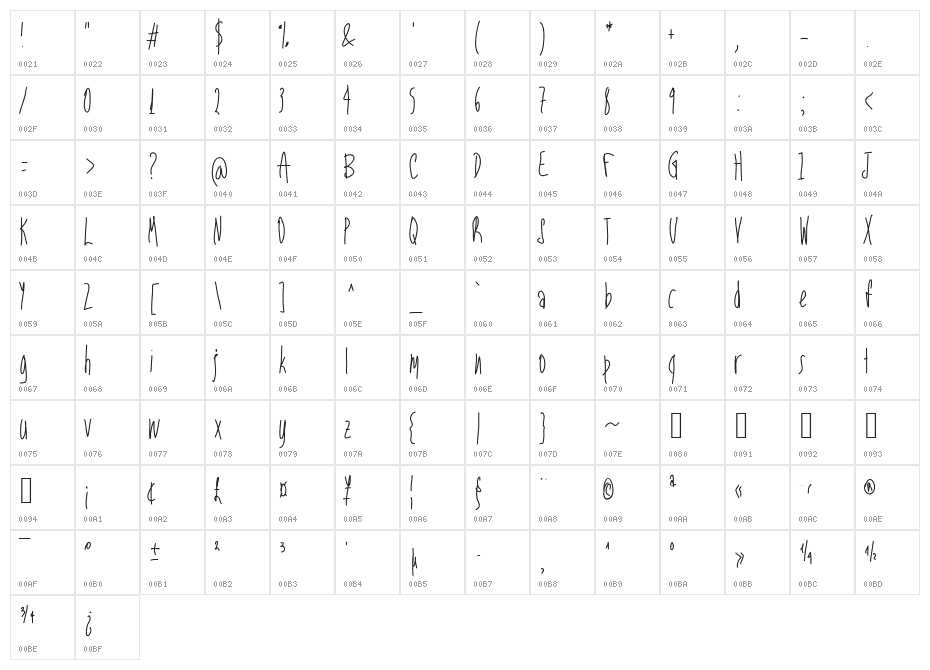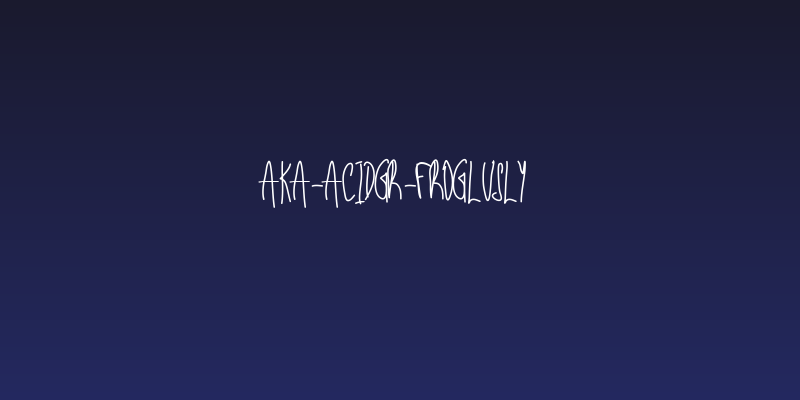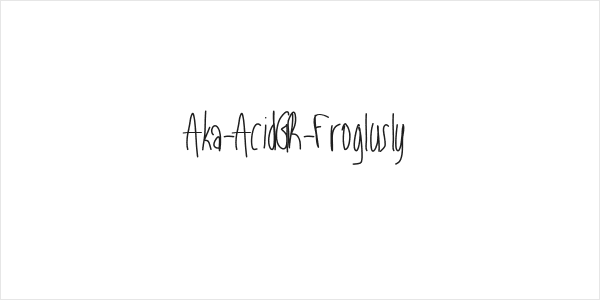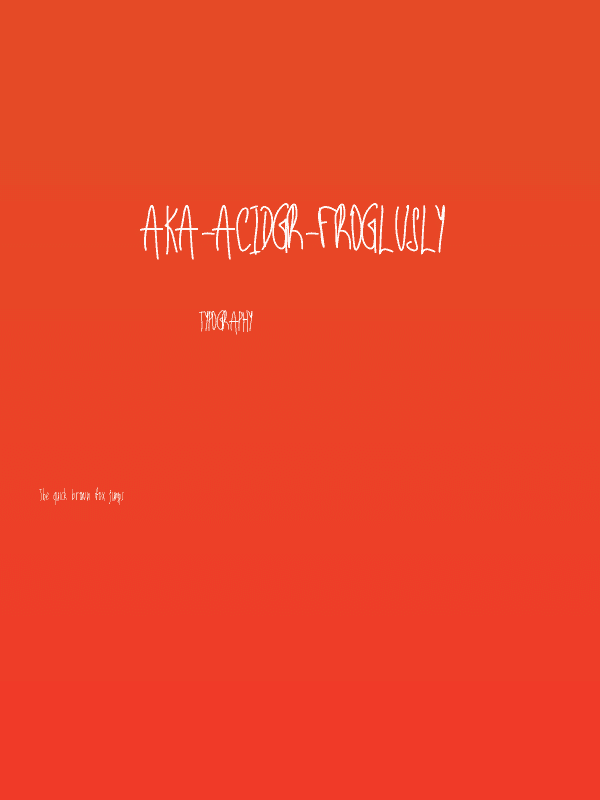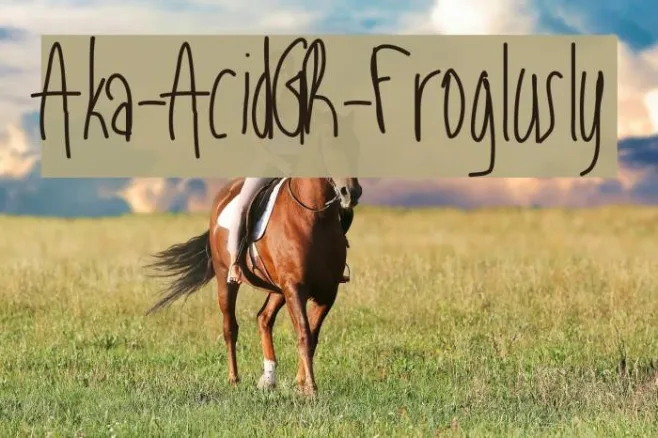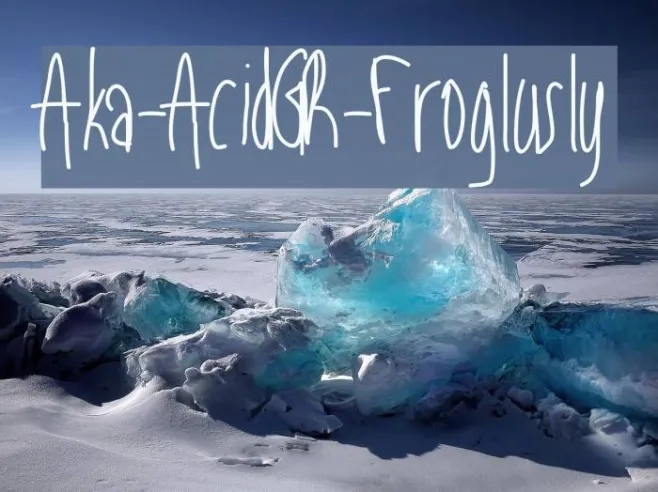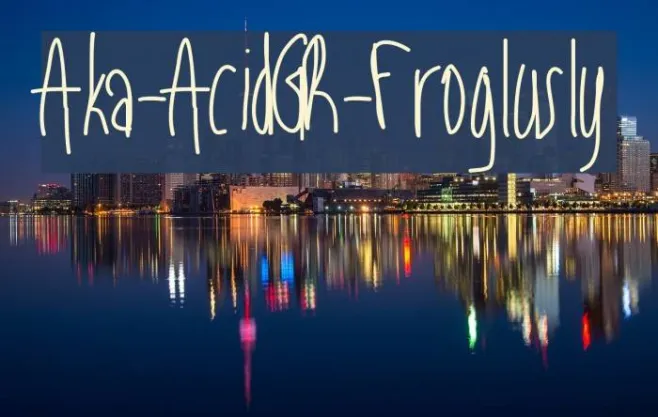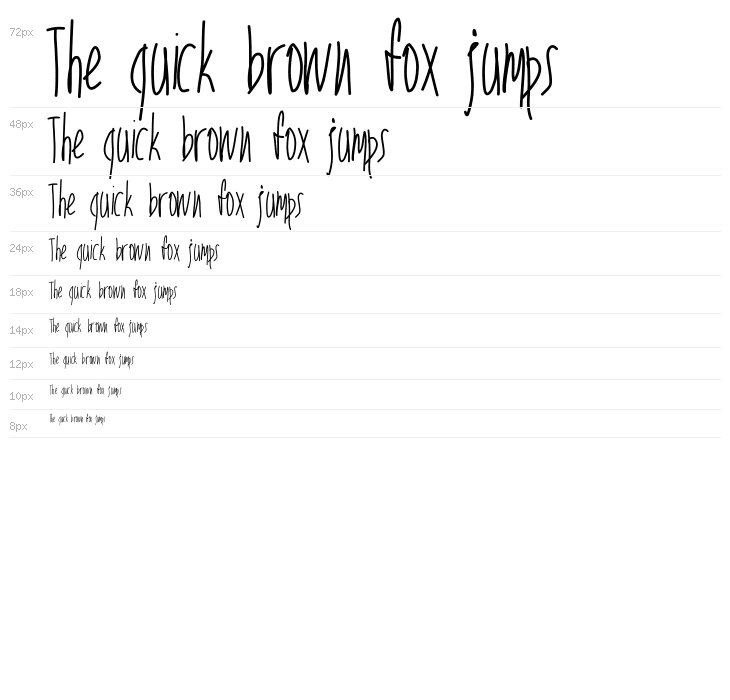
Aka-AcidGR-Froglusly Font
Aka-AcidGR-Froglusly Description
This font features a playful and whimsical handwritten style, characterized by tall, narrow letters with a slightly irregular baseline. The strokes are thin and consistent, giving it a casual and informal appearance. The uppercase and lowercase letters maintain a cohesive look, while the numerals and special characters integrate seamlessly with the overall design. Its unique charm makes it stand out, offering a sense of creativity and spontaneity.